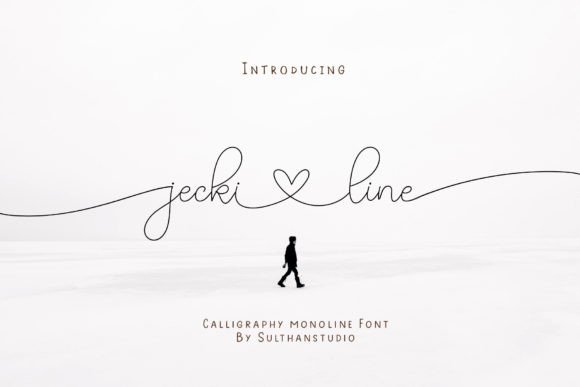
Introducing Jecki Line Font, the ultimate choice for those searching for the best fonts to elevate their wall quotes! Created by the talented Sulthan Studio, this enchanting handwritten font is designed to captivate and leave a lasting impression. Its versatility knows no bounds, making it perfect for a wide range of applications, from greeting cards to captivating headlines.
With Jecki Line Font, your next project is destined to exude a romantic and whimsical aura. The graceful strokes and flowing curves of this script font will effortlessly elevate your designs, adding a touch of elegance and sophistication. Whether you're crafting a heartfelt love letter, designing a captivating wedding invitation, or creating stunning wall quotes, Jecki Line Font will deliver the perfect balance of style and emotion.
This font is a true gem, combining beauty with functionality. It offers a complete set of upper and lower case letters, numbers, punctuation, and language support. The meticulous attention to detail ensures that every character is flawlessly crafted, allowing you to create visually stunning compositions with ease.
One of the standout features of Jecki Line Font is its extensive language support. With its PUA coding, this font opens up a world of possibilities, allowing you to effortlessly express yourself in various languages. Break free from the limitations of standard fonts and embrace the uniqueness and charm of Jecki Line Font.
Stand out from the crowd and let your creativity flourish with Jecki Line Font. Its captivating charm and emotional appeal make it the perfect choice for those seeking to make a statement. Whether you're a professional designer or a DIY enthusiast, this font will empower you to bring your visions to life.